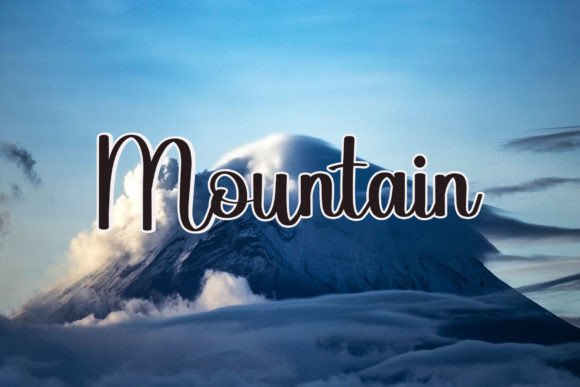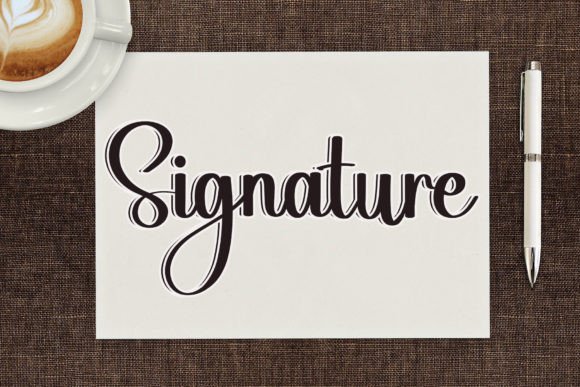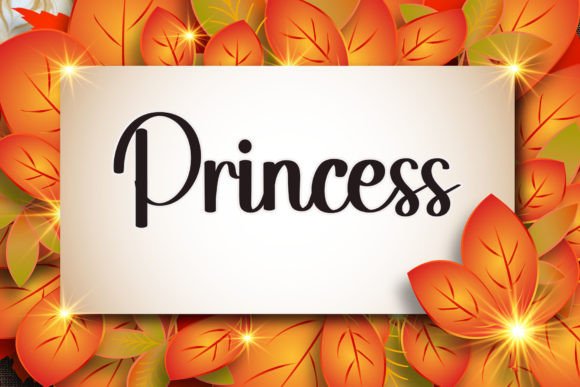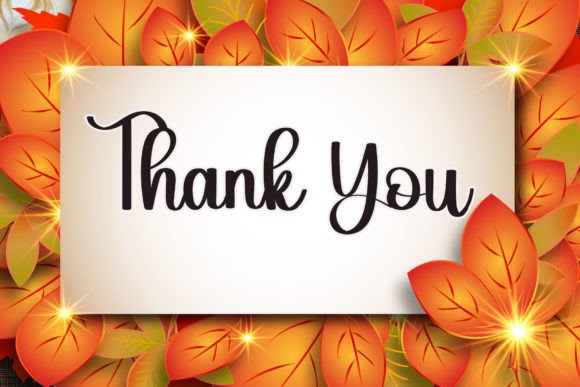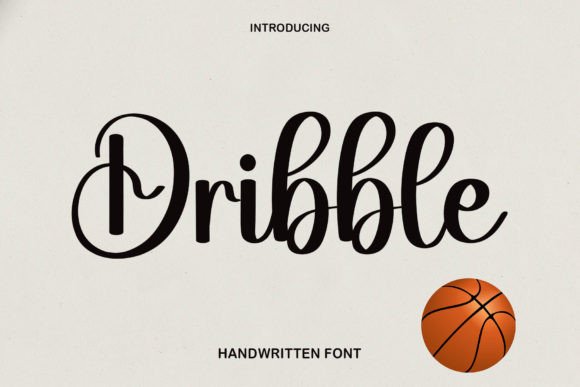
Dribble Font: Elevate Your Designs with Elegance and Class
In the world of typography, fonts play a crucial role in conveying the tone and personality of a design. For designers and crafters looking to add a touch of sophistication and elegance to their projects, the Dribble Font is an excellent choice. Inspired by timeless classic calligraphy, Dribble is a trendy handwritten font with a contemporary atmosphere and impeccable form.
The Inspiration Behind Dribble Font
Dribble Font draws inspiration from traditional calligraphy, which has been a cornerstone of elegant writing for centuries. The font’s creator aimed to capture the essence of classic calligraphy and infuse it with a modern twist, making it perfect for designs that require a touch of sophistication. The result is a font that exudes elegance, refinement, and poise.
Key Features of Dribble Font
So, what makes Dribble Font stand out from other fonts? Here are some of its key features:
- Trendy and Contemporary: Despite being inspired by classic calligraphy, Dribble Font has a distinctly modern feel to it. Its clean lines, subtle curves, and carefully crafted letterforms make it perfect for designs that require a contemporary touch.
- Handwritten with Flair: Dribble Font has a beautiful, handwritten quality to it. Each letter is carefully crafted to convey a sense of elegance and refinement, making it ideal for designs that require a personal touch.
- Impeccable Form: The font’s creator has paid meticulous attention to detail, ensuring that each letterform is perfectly proportioned and balanced. This attention to detail makes Dribble Font a joy to use in a wide range of design projects.
Uses for Dribble Font
Dribble Font is an incredibly versatile font that can be used in a wide range of design projects, including:
- Logo Design: Add a touch of elegance to your logo with Dribble Font. Its classic, sophisticated feel makes it perfect for businesses that want to convey a sense of refinement and poise.
- Wedding and Event Design: Dribble Font is a popular choice for wedding and event design, thanks to its romantic, whimsical feel. Use it to create beautiful invitations, programs, and other stationery.
- Packaging Design: Add a touch of sophistication to your packaging design with Dribble Font. Its clean lines and elegant feel make it perfect for luxury brands and high-end products.
- Digital Design: Dribble Font is also perfect for digital design projects, such as social media graphics, website headers, and email marketing campaigns.
Tips for Using Dribble Font
Here are some tips for getting the most out of Dribble Font:
- Use it Sparingly: While Dribble Font is beautiful, it’s best used sparingly. Use it as a headline font or to add a touch of elegance to specific design elements.
- Pair it with Other Fonts: Dribble Font pairs beautifully with other fonts, such as sans-serif fonts or script fonts. Experiment with different pairings to find the one that works best for your design.
- Experiment with Colors: Dribble Font looks stunning in a range of colors, from classic black and white to bold, bright hues. Experiment with different colors to find the one that works best for your design.
In conclusion, Dribble Font is a beautiful, elegant font that’s perfect for designers and crafters looking to add a touch of sophistication to their projects. With its trendy, contemporary feel and impeccable form, it’s an excellent choice for a wide range of design projects. Whether you’re creating a logo, designing a wedding invitation, or crafting a digital graphic, Dribble Font is sure to impress.